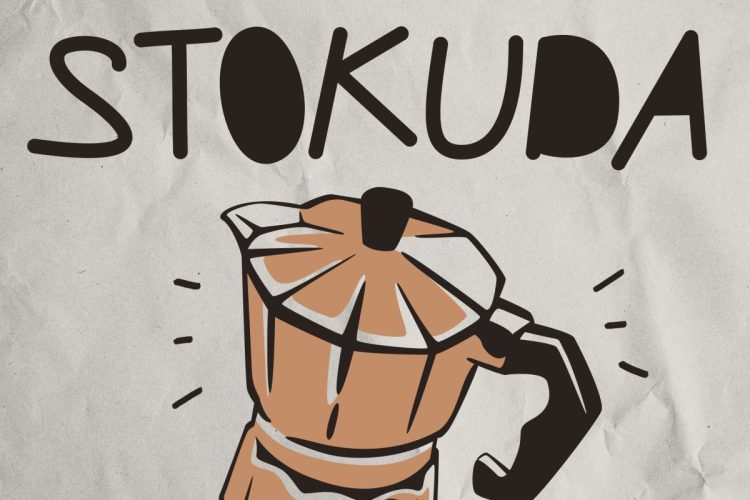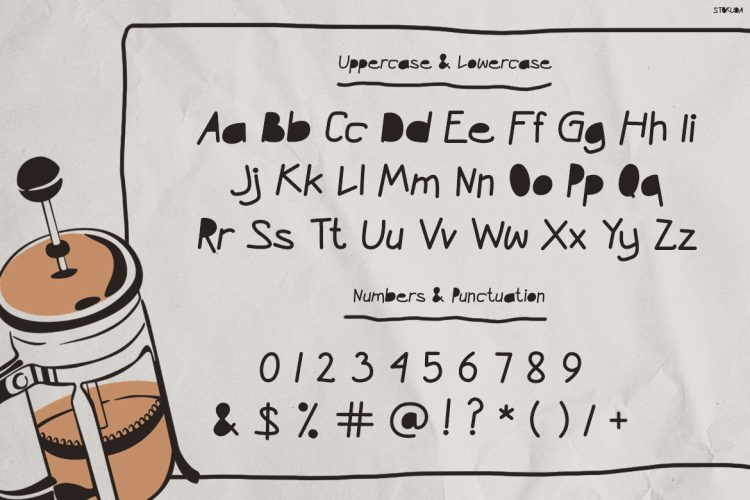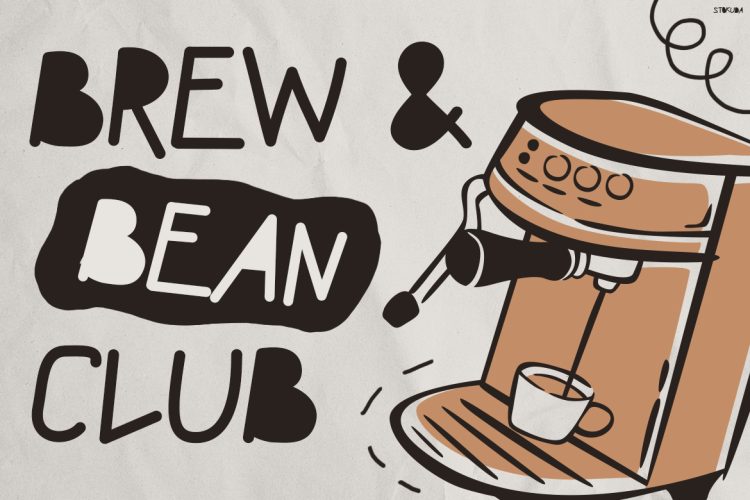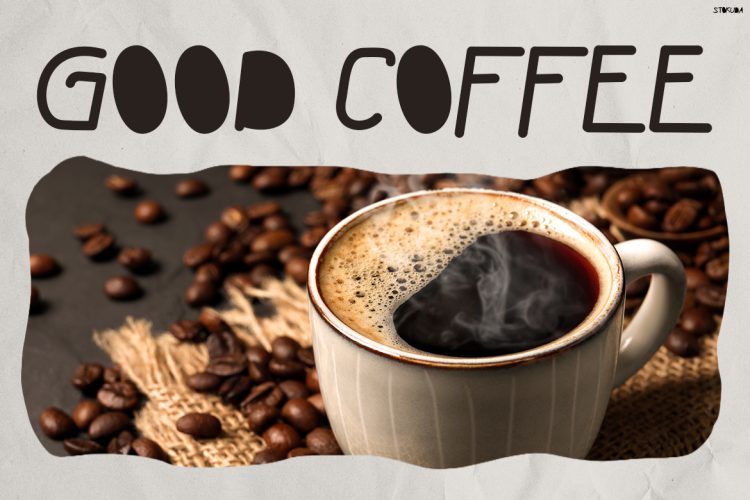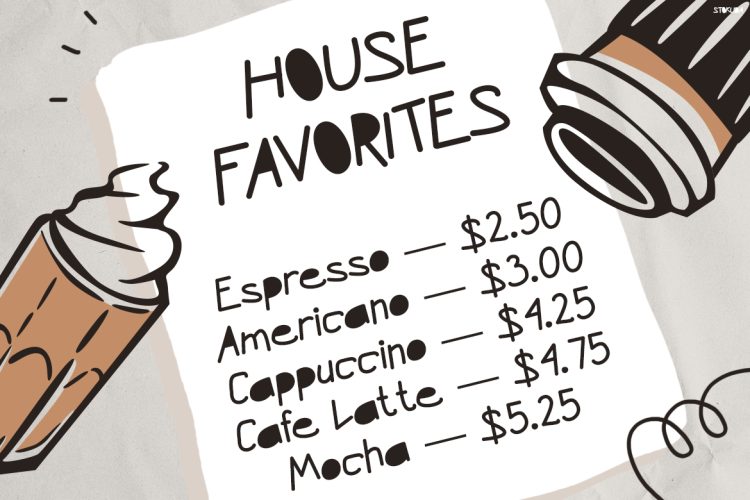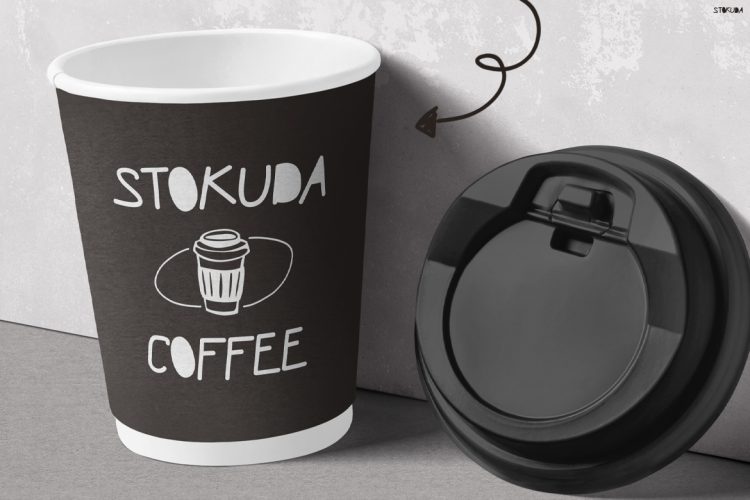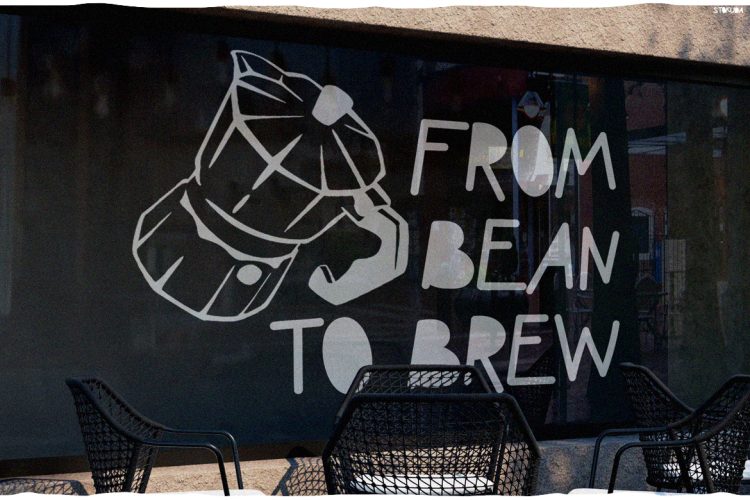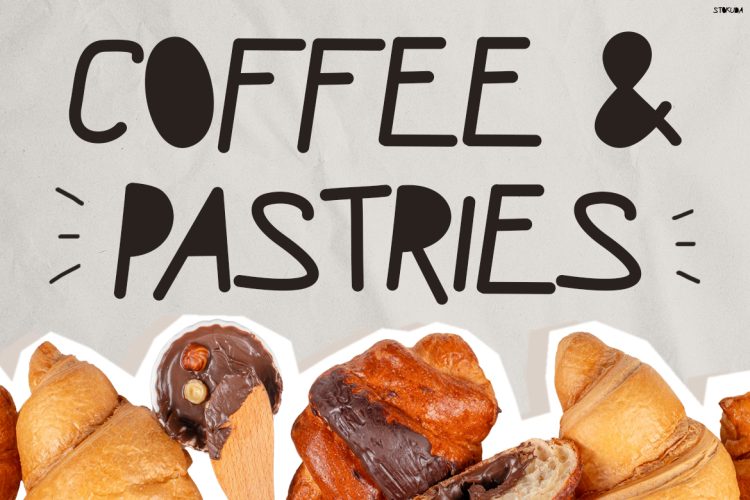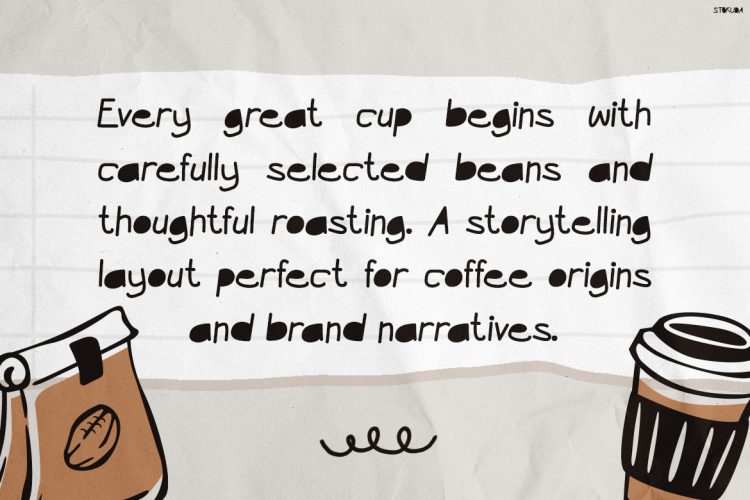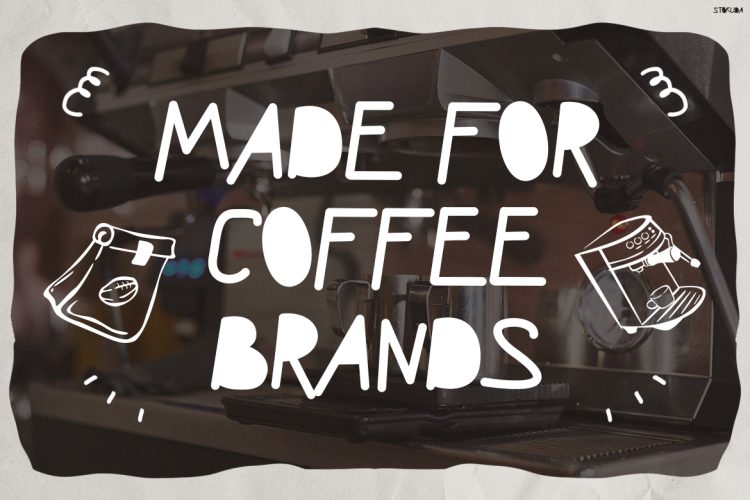
Kids Font Stokuda โ Cozy Coffee Font with Handmade Cafรฉ Charm
Kids Font Stokuda is a bold and playful display font designed to bring warmth, creativity, and handcrafted character into every design. With its quirky hand-drawn letterforms, organic brush-like shapes, and cozy coffee-shop aesthetic, this font instantly creates a friendly and inviting visual atmosphere. Moreover, the unique imperfect details make every headline feel more authentic, personal, and memorable. In addition, the bold typography keeps your text highly readable, so your message stands out across menus, packaging, posters, and social media content. Because of its charming handmade style, Kids Font Stokuda works perfectly for coffee branding, bakery promotions, cafรฉ packaging, and artisan product designs. Furthermore, the playful character structure helps every layout feel more approachable and engaging. At the same time, the rustic visual vibe adds warmth and personality that customers instantly connect with.
Why Kids Font Stokuda Stands Out
Stokuda combines cozy cafรฉ aesthetics with expressive handwritten typography. As a result, every word feels warm, creative, and full of character. Not only does the font create a welcoming atmosphere, but it also enhances branding with its handcrafted and artistic appearance. Additionally, the bold letterforms make headlines easy to notice. Meanwhile, the organic shapes keep every design feeling natural and authentic. Whether you are creating coffee shop menus, bakery packaging, promotional posters, or cafรฉ merchandise, this font helps every project feel more inviting and memorable. Likewise, the handmade style gives your branding a unique and personal touch that stands apart from generic typography.
- Coffee shop branding
- Cafรฉ menus
- Bakery packaging
- Artisan product labels
- Coffee merchandise
- Social media graphics
- Promotional posters
- Food packaging
- Small business branding
- Handmade product campaigns
Brew Up More Attention